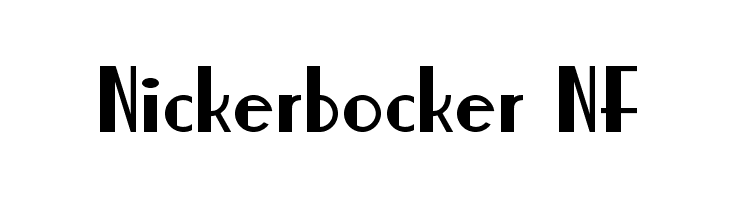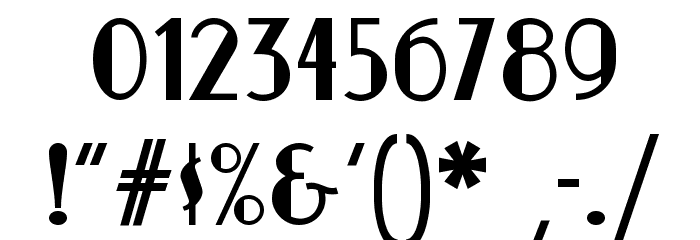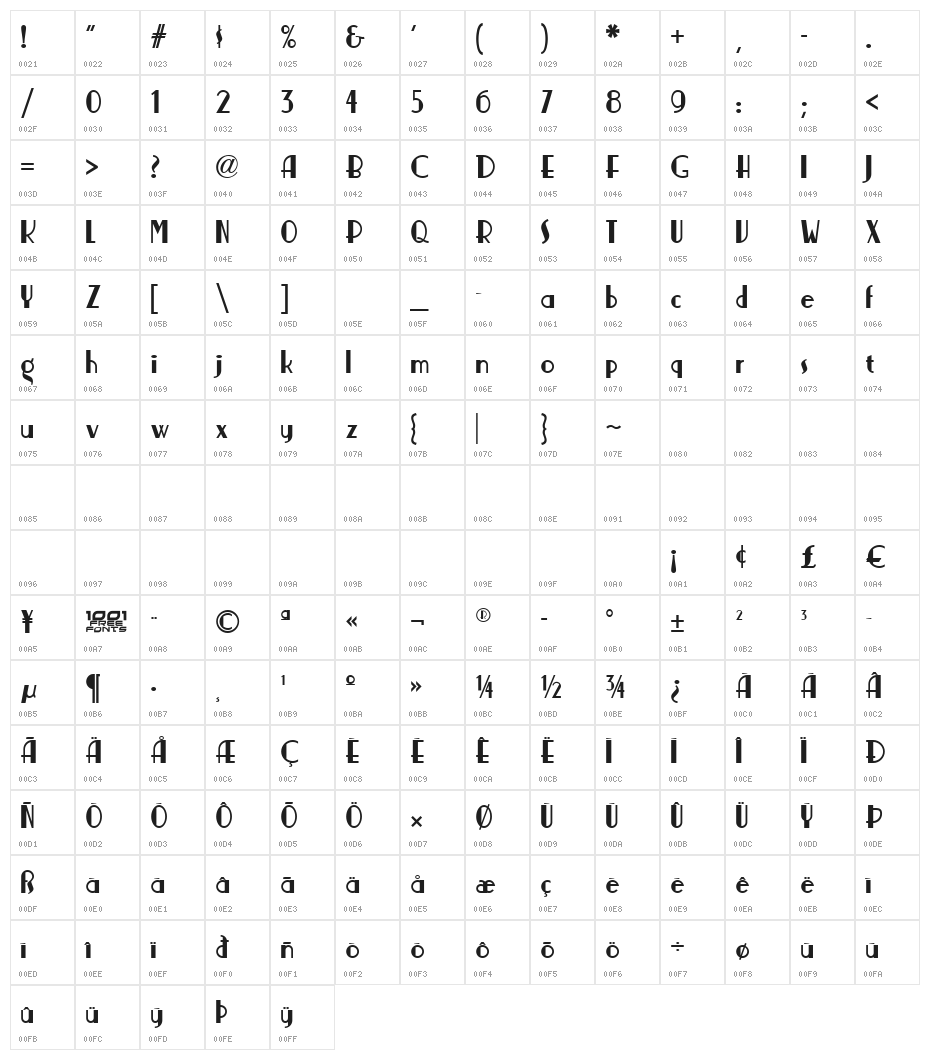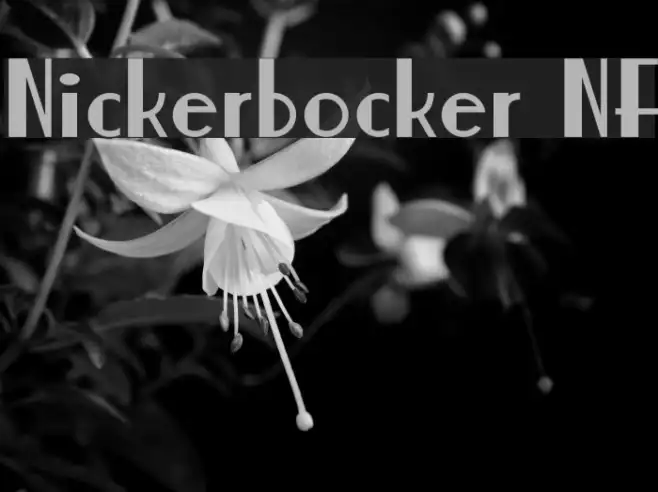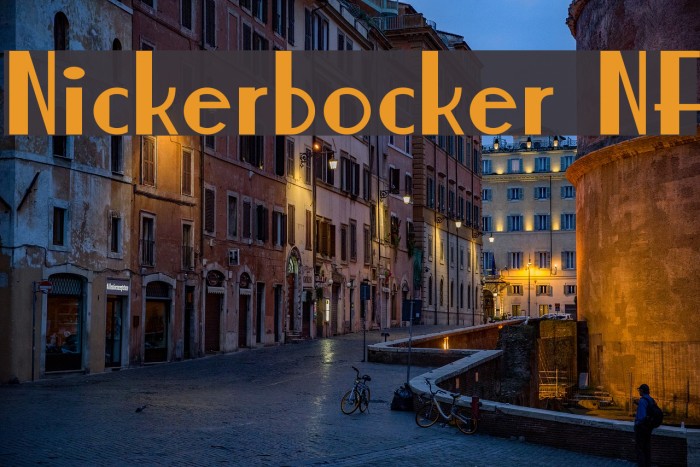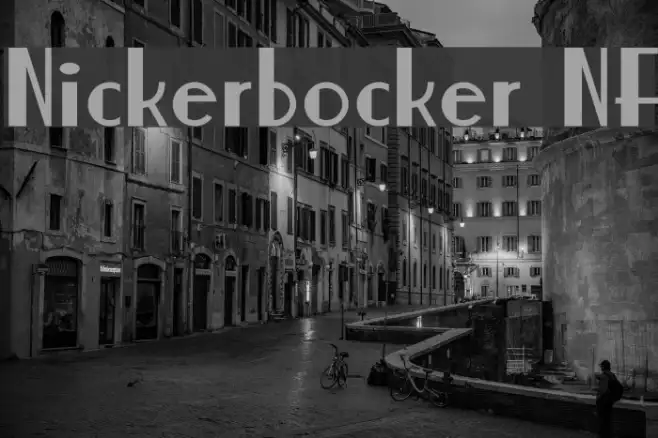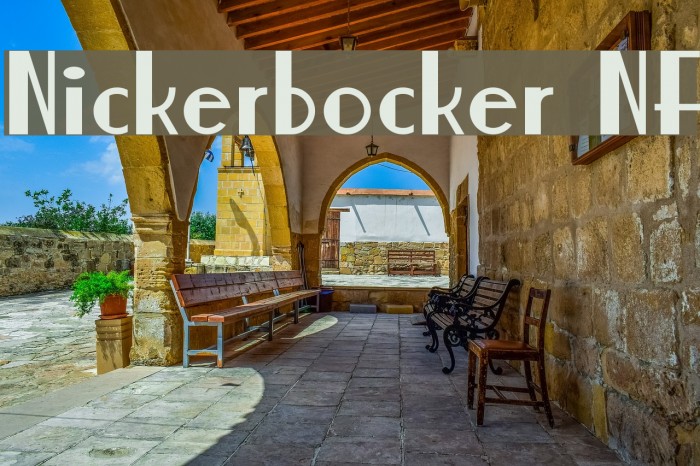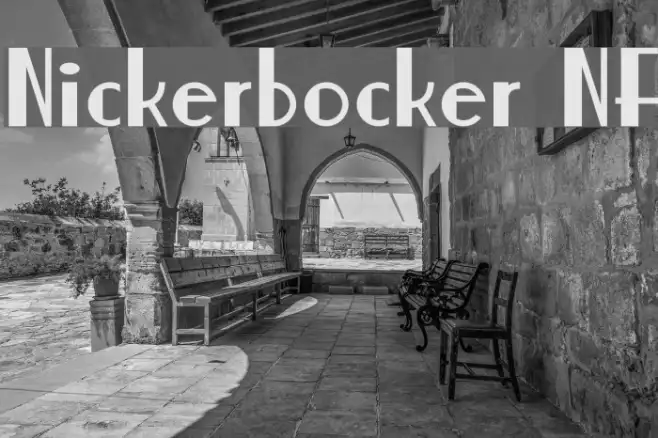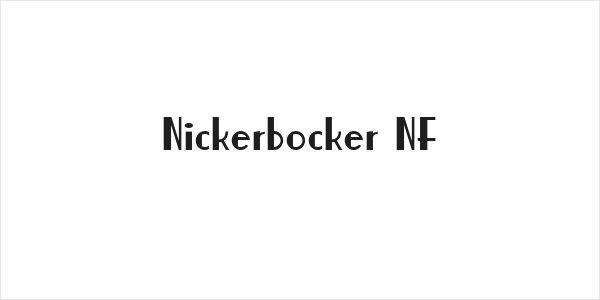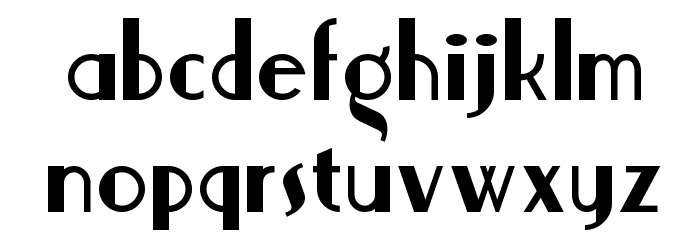
Nickerbocker NF Font
Nickerbocker NF Description
This font features a bold and dynamic style with a distinct Art Deco influence. The uppercase letters are characterized by geometric shapes and sharp angles, giving them a strong and commanding presence. The lowercase letters maintain a similar aesthetic, with unique curves and lines that add a touch of elegance. The numerals are consistent with the overall design, offering a cohesive look. Special characters are creatively designed, enhancing the font's decorative appeal. This typeface is perfect for projects that require a vintage yet modern flair.
| Overall Style | Vintage, Modern |
| Proposed Projects | Ideal for branding, posters, headlines, and any design needing a vintage yet modern touch. |